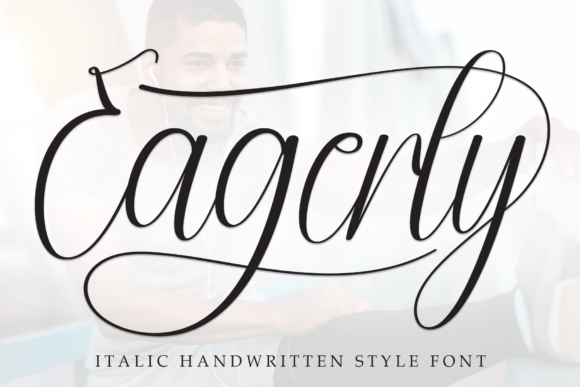
Eagerly Font: The Sweet and Elegant Handwritten Display Font
Are you looking for a font that can add a touch of sweetness and elegance to your designs? Look no further than Eagerly Font! This beautiful handwritten display font is perfect for creating wedding invitations, cards, and other designs that require a fun and personal touch.
What is Eagerly Font?
Eagerly Font is a modern handwritten display font that is designed to bring a sense of joy and playfulness to your designs. Its sweet and elegant style makes it ideal for a variety of creative projects, from wedding invitations and cards to posters, flyers, and more.
Key Features of Eagerly Font
- Sweet and Elegant Style: Eagerly Font has a unique and charming style that is both sweet and elegant. Its handwritten feel makes it perfect for designs that require a personal touch.
- Handwritten Display Font: Eagerly Font is a display font that is designed to make a statement. Its bold and playful style makes it perfect for headlines, titles, and other design elements that need to stand out.
- Perfect for Wedding Invitations and Cards: Eagerly Font is ideal for creating beautiful wedding invitations, cards, and other stationery designs. Its elegant style makes it perfect for formal events, while its playful feel makes it suitable for more casual celebrations.
- Easy to Read: Despite its playful style, Eagerly Font is easy to read and understand. This makes it perfect for designs that require a clear and concise message.
How to Use Eagerly Font
Eagerly Font is a versatile font that can be used in a variety of creative projects. Here are some ideas to get you started:
- Wedding Invitations: Use Eagerly Font to create beautiful and elegant wedding invitations that set the tone for the big day.
- Cards and Stationery: Eagerly Font is perfect for creating cards, stationery, and other paper designs that require a personal touch.
- Posters and Flyers: Use Eagerly Font to create eye-catching posters and flyers that grab attention and communicate your message.
- Social Media Graphics: Eagerly Font can be used to create engaging social media graphics that stand out in crowded feeds.
Benefits of Using Eagerly Font
There are many benefits to using Eagerly Font in your designs. Here are a few:
- Unique and Eye-Catching: Eagerly Font has a unique and eye-catching style that sets it apart from other fonts.
- Easy to Read: Despite its playful style, Eagerly Font is easy to read and understand.
- Versatile: Eagerly Font can be used in a variety of creative projects, from wedding invitations to posters and flyers.
- Time-Saving: Eagerly Font can save you time and effort in your design projects. Its elegant style means you don’t have to spend hours creating custom lettering or illustrations.
Tips for Using Eagerly Font
Here are some tips for using Eagerly Font in your designs:
- Use it Sparingly: Eagerly Font is a bold and playful font, so use it sparingly to avoid overwhelming your design.
- Pair it with Other Fonts: Eagerly Font can be paired with other fonts to create a unique and interesting design.
- Experiment with Colors: Eagerly Font looks great in a variety of colors, so experiment with different hues to find the one that works best for your design.
Eagerly Font is a sweet and elegant handwritten display font that is perfect for adding a touch of personality to your designs. Its unique style, ease of use, and versatility make it a great choice for designers and crafters. Whether you’re creating wedding invitations, cards, posters, or social media graphics, Eagerly Font is a great choice. So why not give it a try and see how it can elevate your designs?